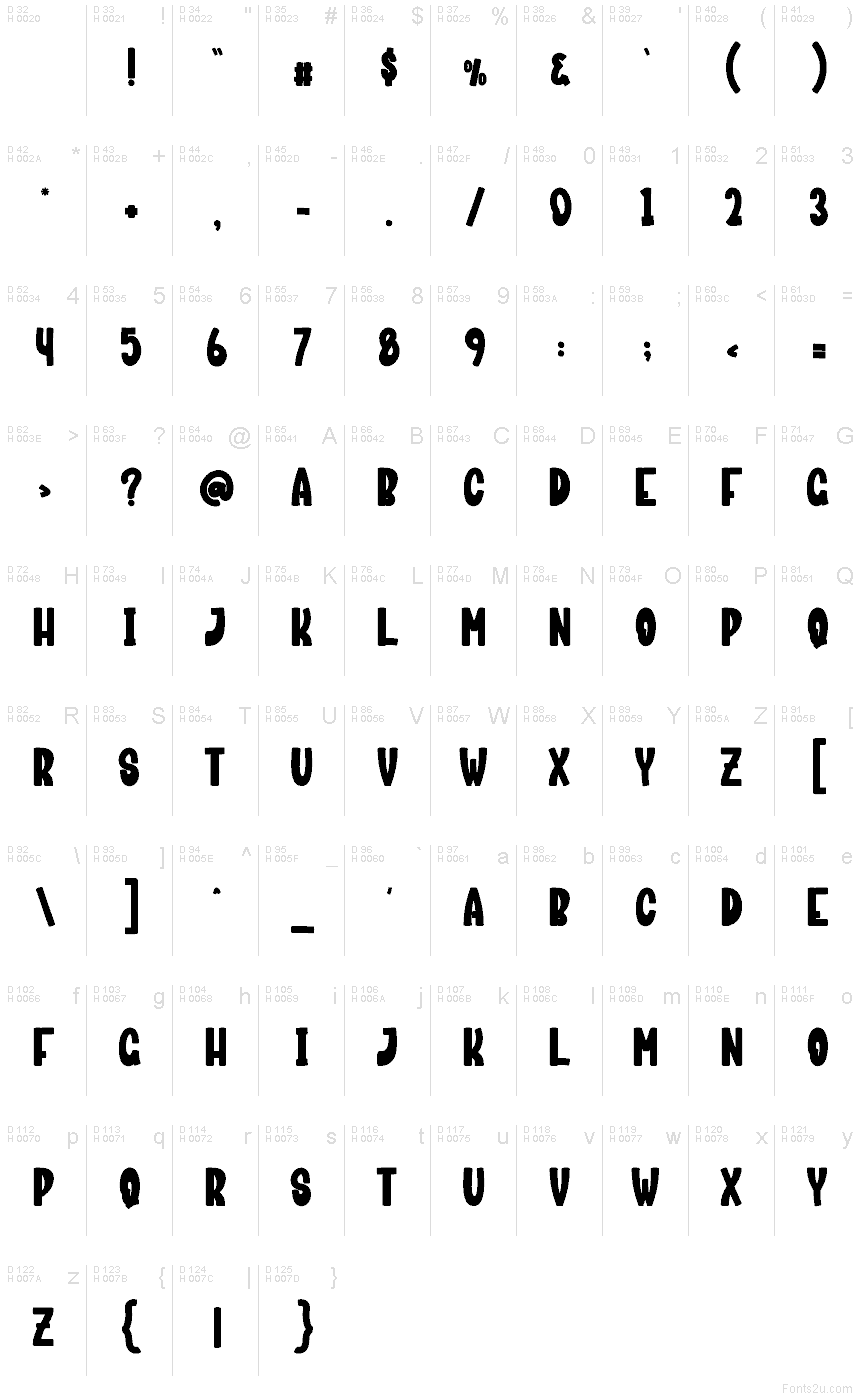
Garland Christmas
Garland Christmas font by Scratchones infuses decorative charm into a condensed bold display. With its whimsical, retro-inspired design, this typeface exudes a captivating festive aesthetic. Where every stroke has a purpose, each character captures the playful essence of art and imagination of the holiday spirit.
This free display font’s bold appearance beautifully complements branding projects, greeting cards, invitations, stationery prints, social media posts & banners, product packaging & labels. Its fun style is also suitable for embellishing on-wear or digital clothing as well as marketing in-store posters and event announcements. Use Garland Christmas to update your work with renewed energy!